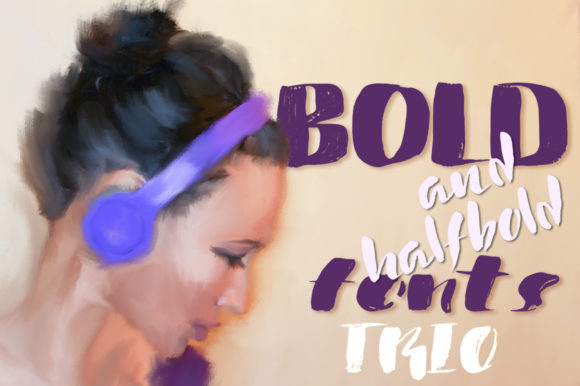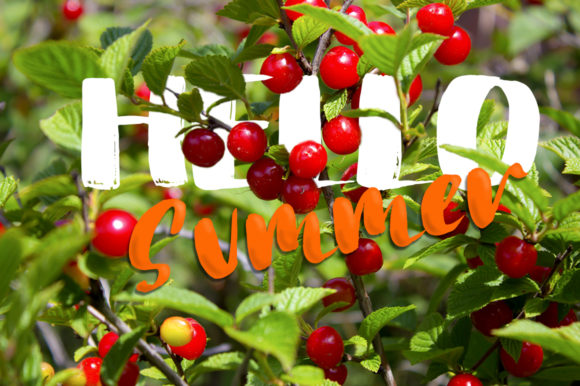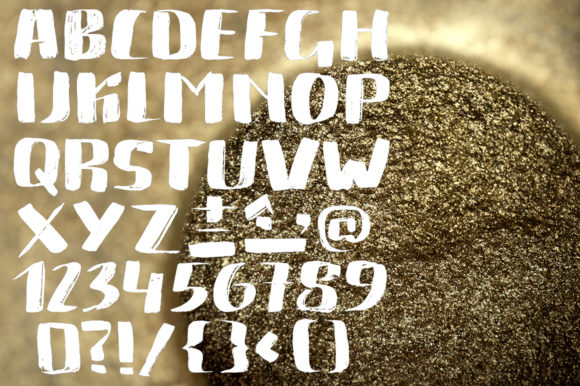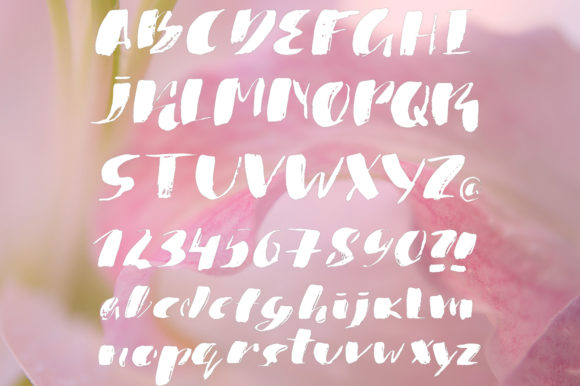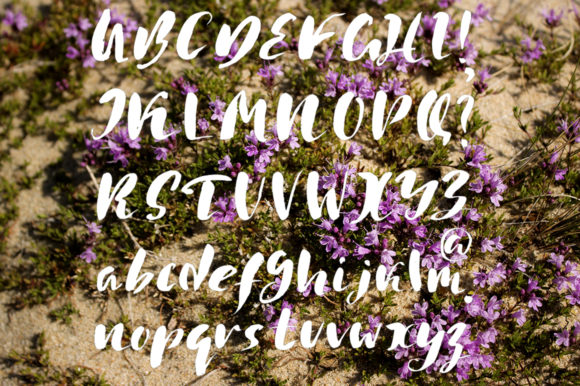
Introduction to Handwritten Trio Font
Have you ever sat at your desk, staring at a blank sheet of paper, waiting for inspiration to strike? That’s exactly where the magic happens – when creativity knows no bounds and your imagination takes over. As designers, we’ve all been there, and it’s moments like these that remind us why we love our job so much.
For those of us who crave that perfect font to elevate our designs, the Handwritten Trio Font is a game-changer. This exquisite handwritten font is a masterclass in combining classy calligraphic influences with a fresh, contemporary feel. With its high-quality design, it’s no wonder this font has become a go-to resource for designers looking to add a touch of sophistication to their creative projects.
Whether you’re working on a project that requires a unique, handwritten look or simply want to add some visual interest to your design, the Handwritten Trio Font is an invaluable resource. And the best part? It’s available for free download, making it an accessible design resource for designers of all levels.
Key Features of Handwritten Trio Font
- High-quality, cursive font suitable for creative projects, such as invitations, posters, and greeting cards.
- Available in three unique styles: Classic, Casual, and Elegant, providing a range of design options for your project.
- Comes with transparent background, making it easy to combine with other design elements and backgrounds.
- Perfect for designers and artists looking for a unique, handwritten font to add a personal touch to their creative projects.
Honest Review: Handwritten Trio Font
I recently had the chance to work with the Handwritten Trio Font, and I must say, it’s a great addition to any designer’s toolkit. The font is perfect for creative projects that require a high-quality, handwritten touch. One of the standout features is the transparent background option, which allows for seamless integration with other design elements.
- What works well: ✨ The font is incredibly versatile and can be used for a wide range of applications, from wedding invitations to blog headers.
Overall, I’m impressed with the Handwritten Trio Font. It’s a great resource for designers looking to add a touch of personality to their projects. With its high-quality design and transparent background option, it’s a valuable addition to any design toolkit.
Introduction to Handwritten Trio Font
The Handwritten Trio Font is a versatile, high-quality font perfect for creative projects that require a personal touch. This free download design resource is ideal for adding a unique, handwritten feel to your designs.
Tips for Getting the Most Out of Handwritten Trio Font
For a transparent background, use the font on a layer with a transparent background. Experiment with different font sizes and styles to create a unique look. Use the font on a textured background for added depth.
Common Use Cases for Handwritten Trio Font
The Handwritten Trio Font is ideal for wedding invitations, birthday cards, and other creative projects that require a personal touch. Use the font to add a handwritten feel to your designs and make them stand out.
Can I use the Handwritten Trio Font with a transparent background?
Yes, the Handwritten Trio Font is designed to work well with transparent backgrounds. You can use it in graphic design projects, such as logos, icons, or graphics, where a transparent background is required. To achieve this, you’ll need to use a design software that supports transparent backgrounds, such as Adobe Illustrator or Canva.